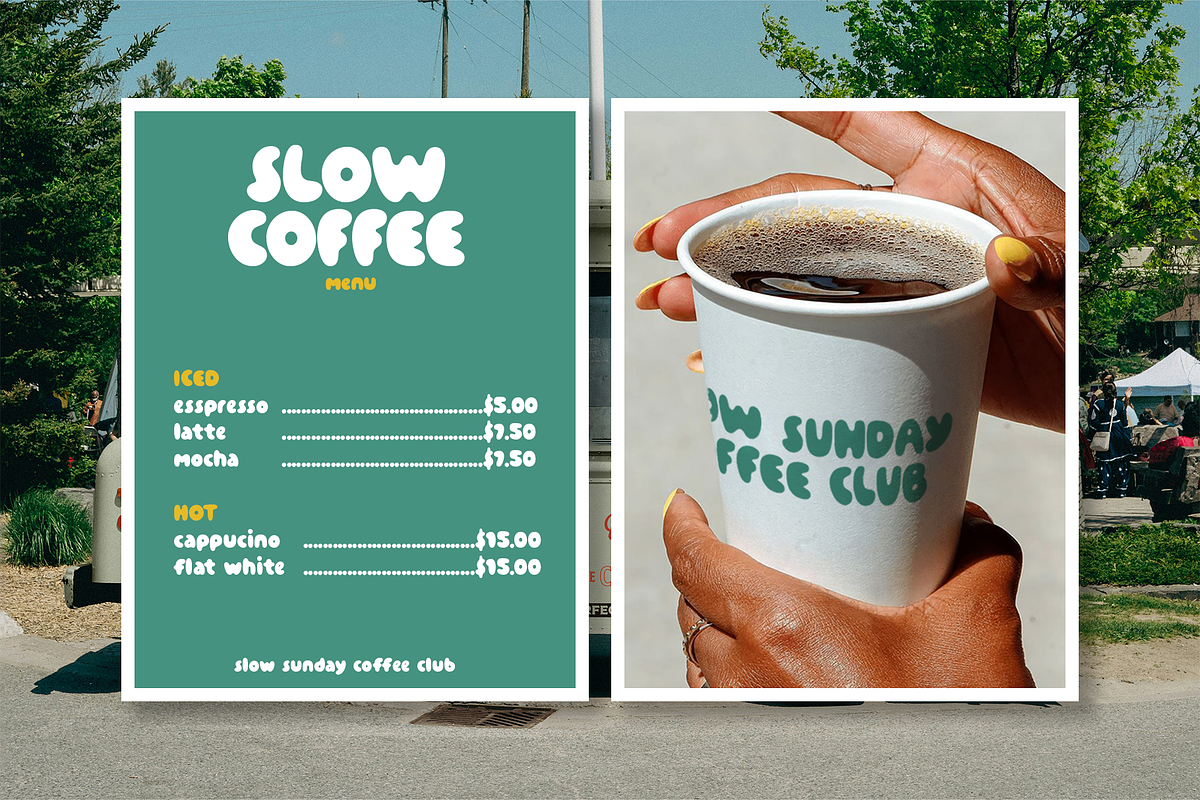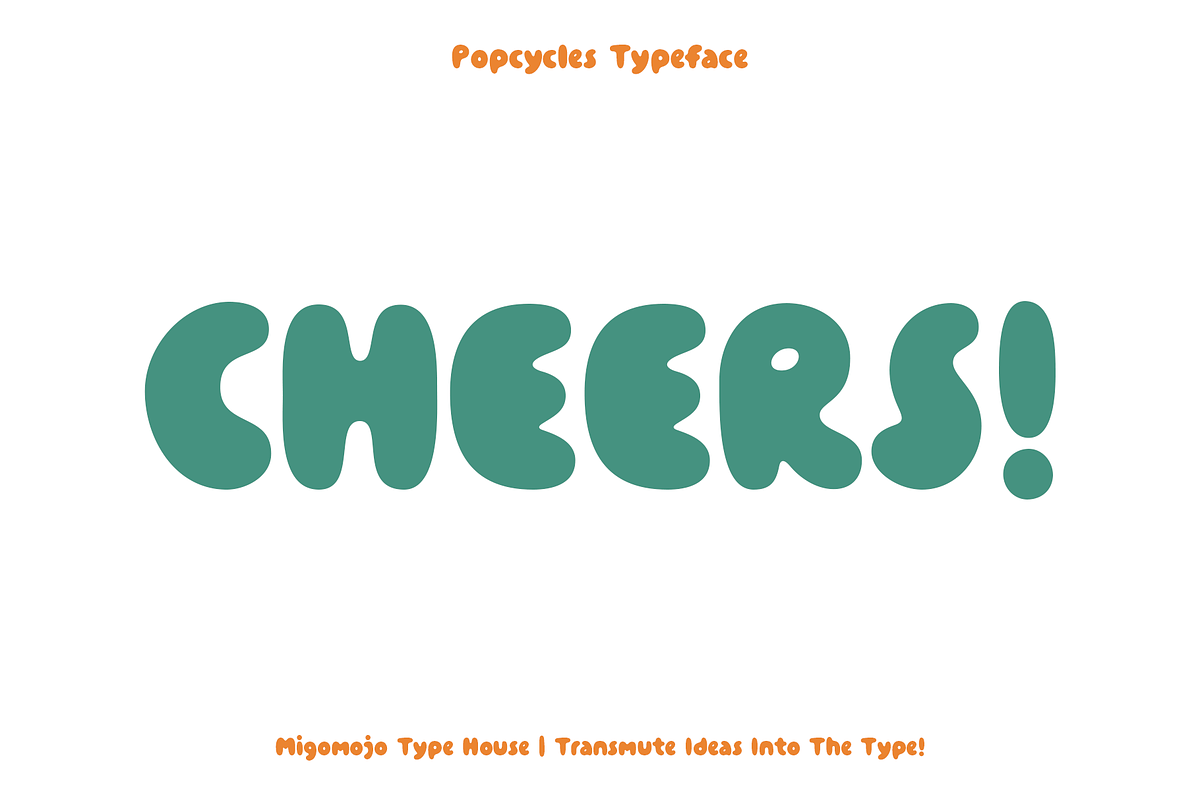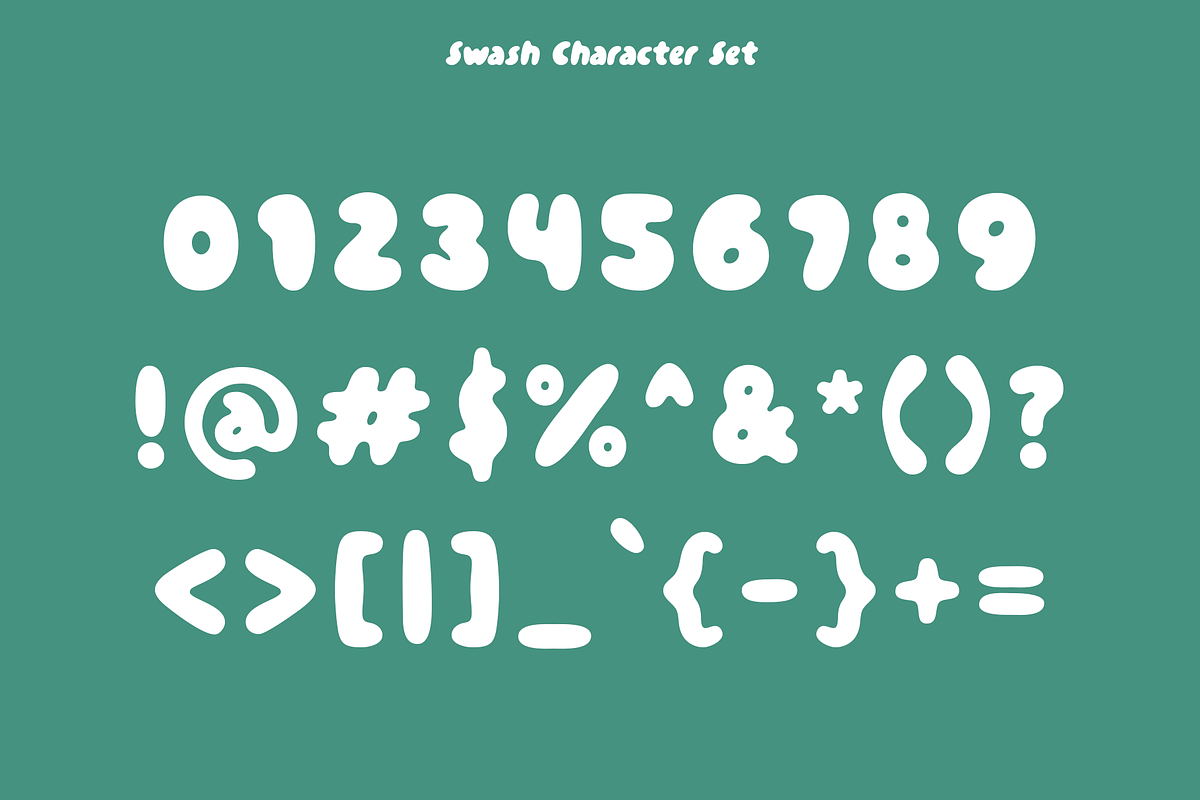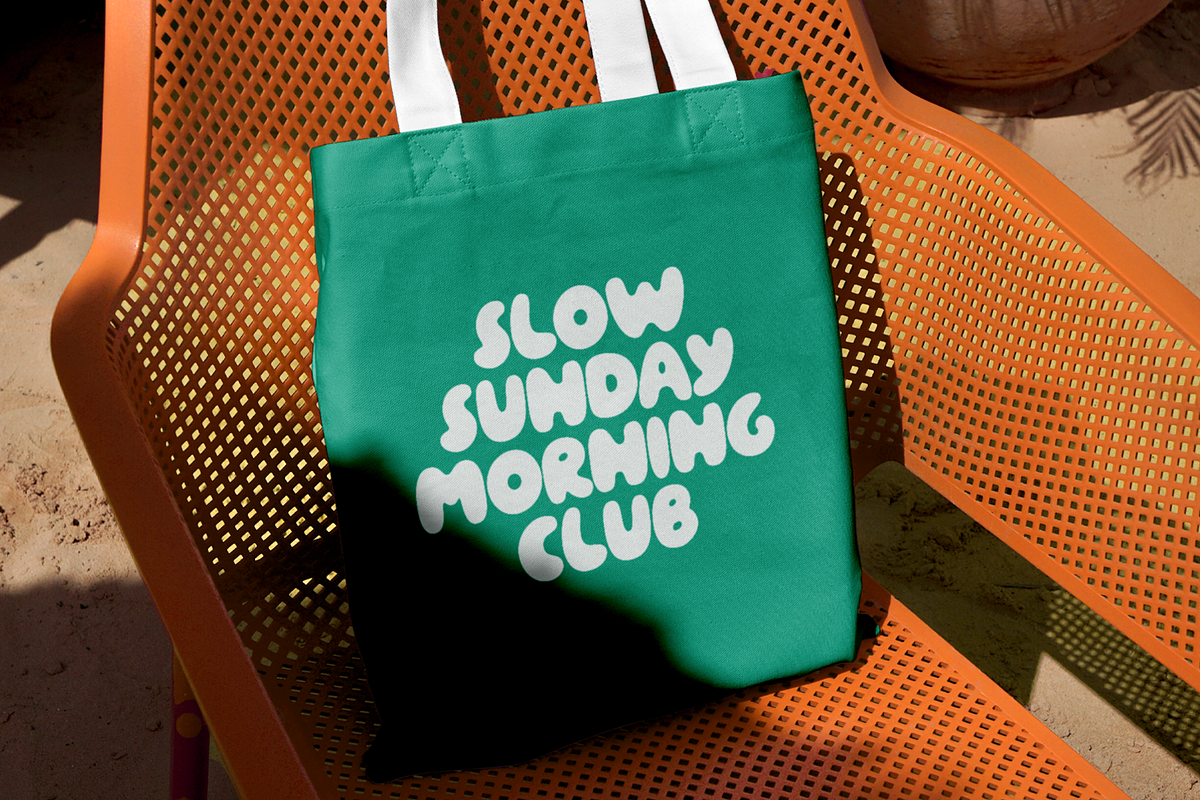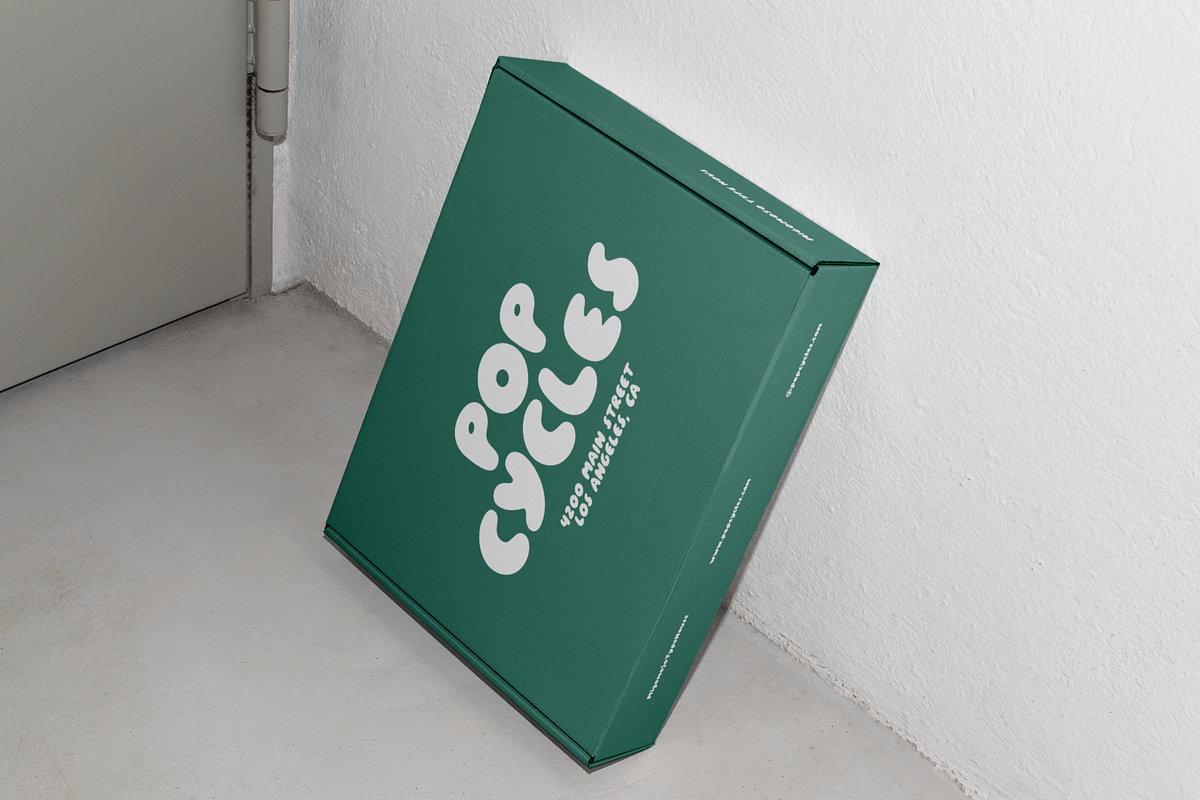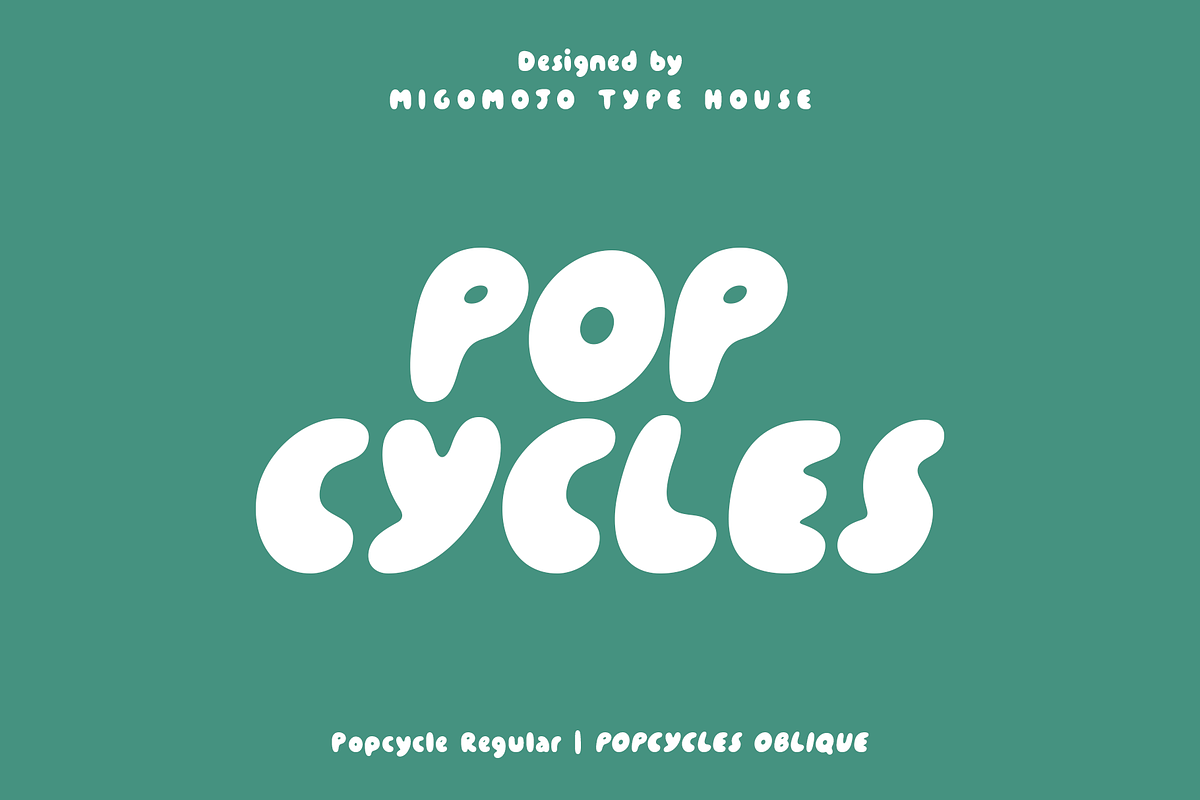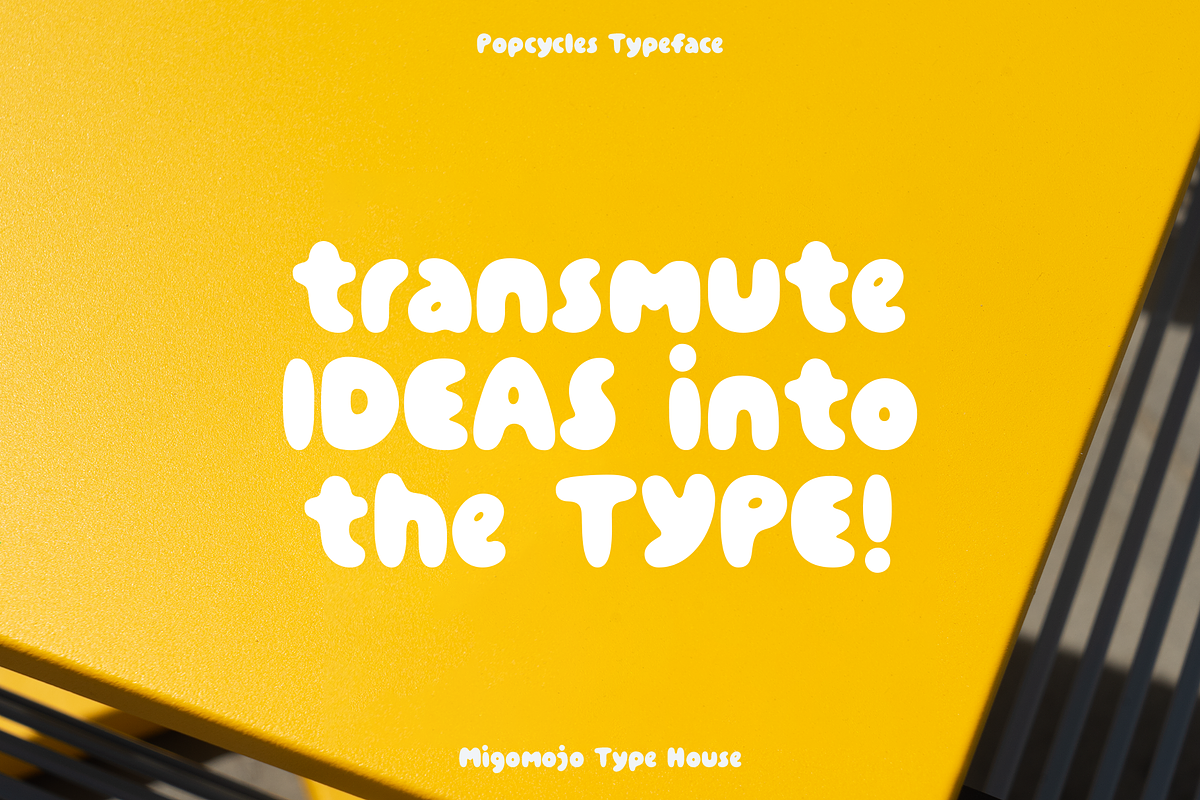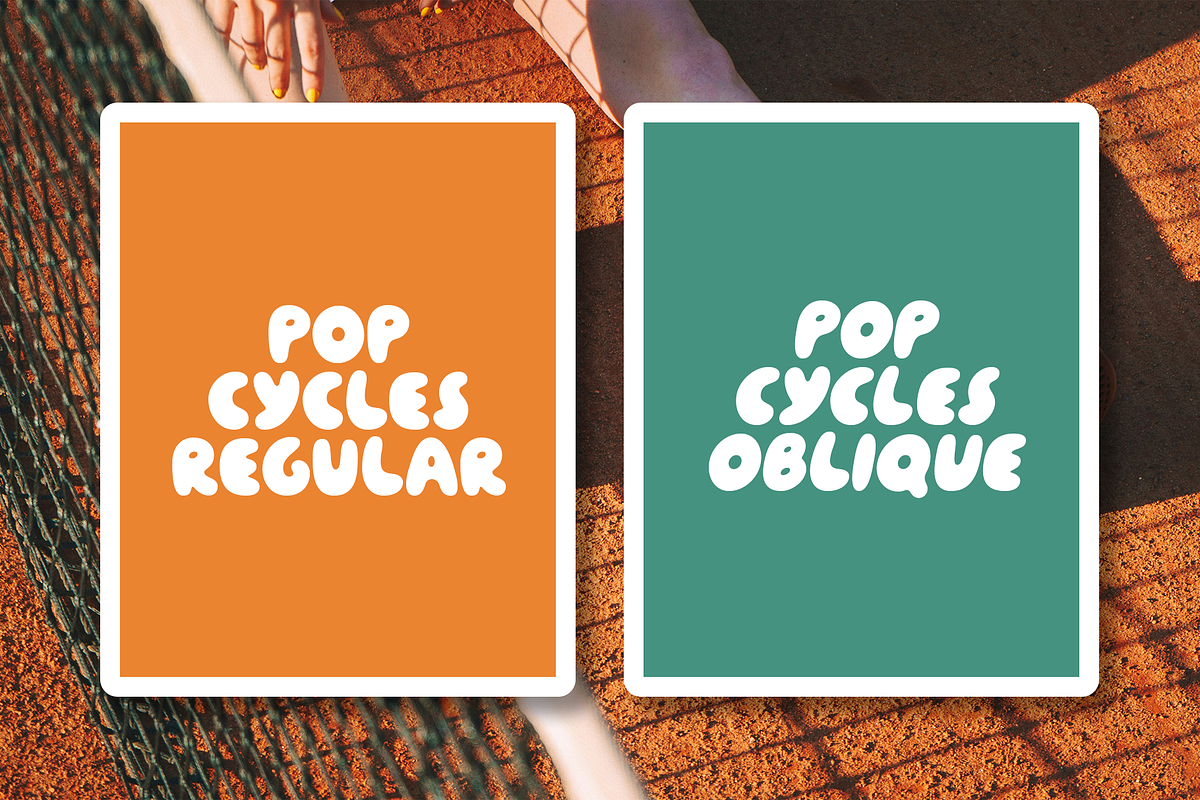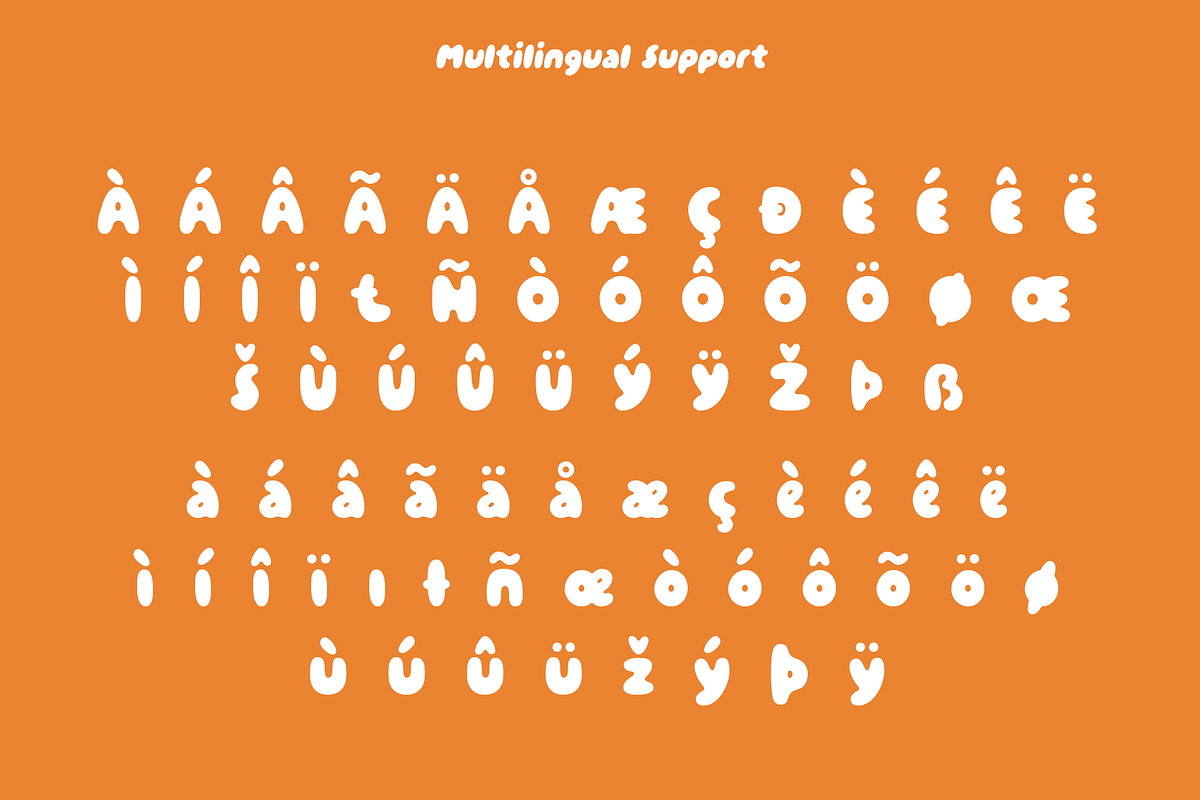
Popcycles Display Font
Popcycles is the chunky, groovy display font. It delivers instant 90s typography fun with its youthful and playful, organic letterforms. Get a bold, groovy, nostalgic touch for your designs. Popcycles available in 2 style; regular and oblique with 400+ glyphs with multilingual support, it’s perfect for logo design, food branding, social media graphics, retro apparel, brand collateral, etc.